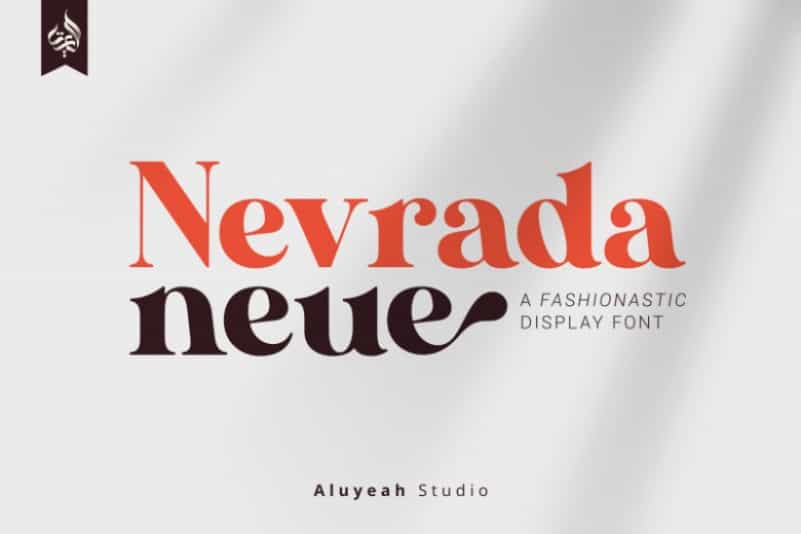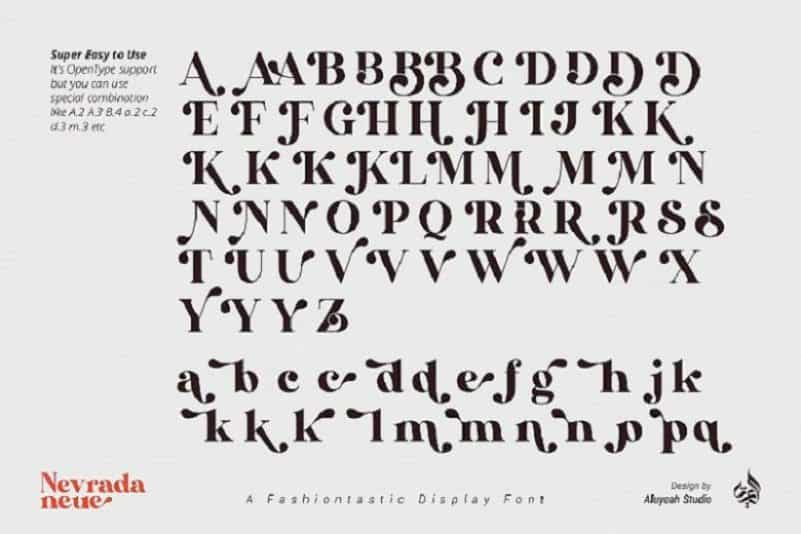
The Nevreada Neue is a fashiontastic display font. This font was made from the bestseller font Nevrada and it is based on one of the leading fashion brand in the world. As a rule, it produces the effect of luxury and elegance in design. Introducing to you the 90+ luxury alternate designs that will help you to make a perfectly beautiful, classy, chic, elegant and glamorous design.